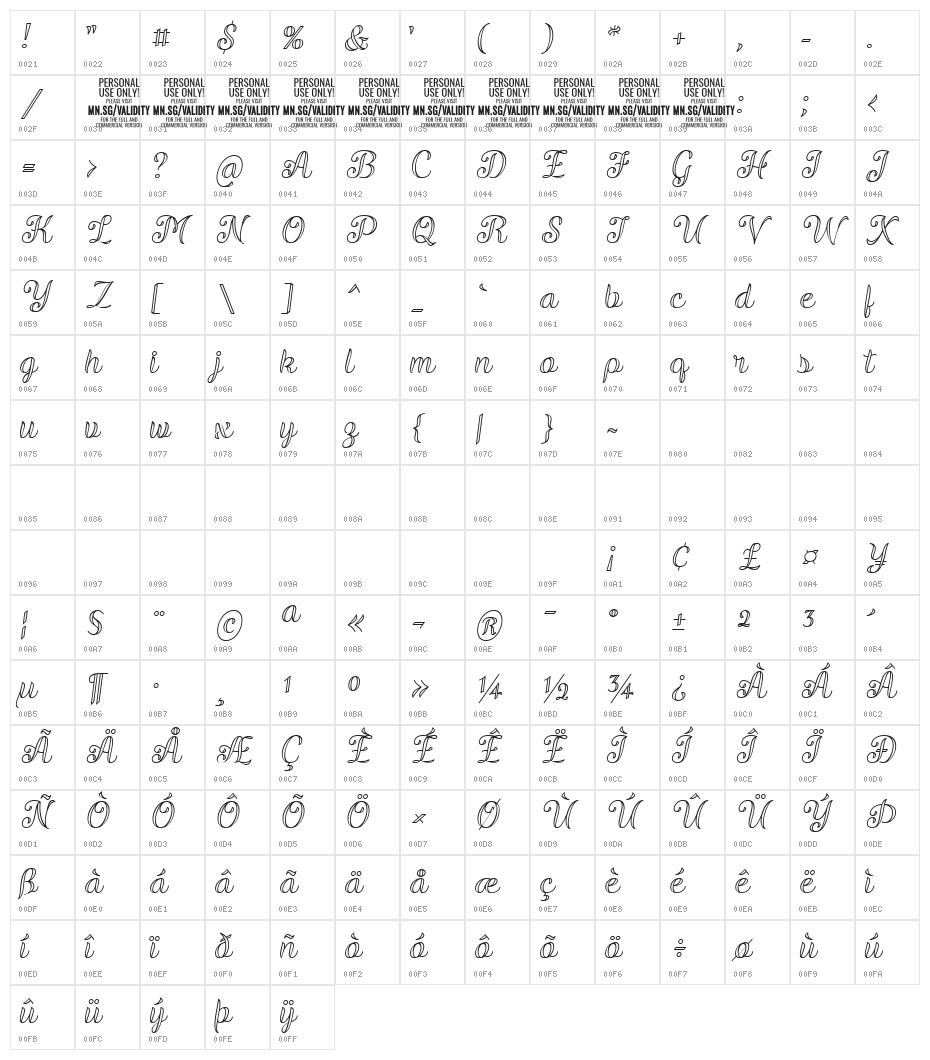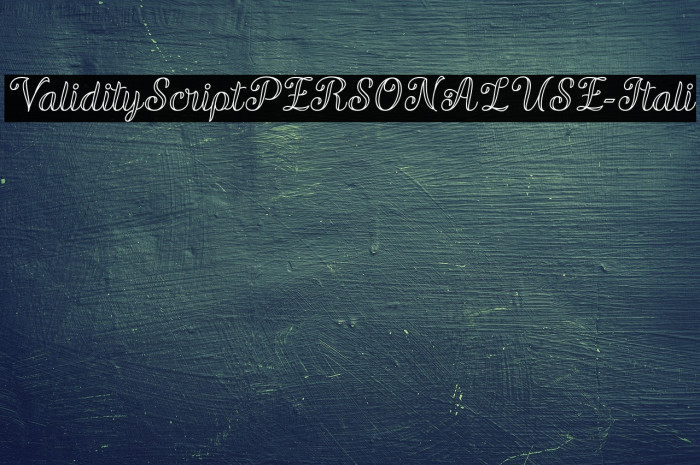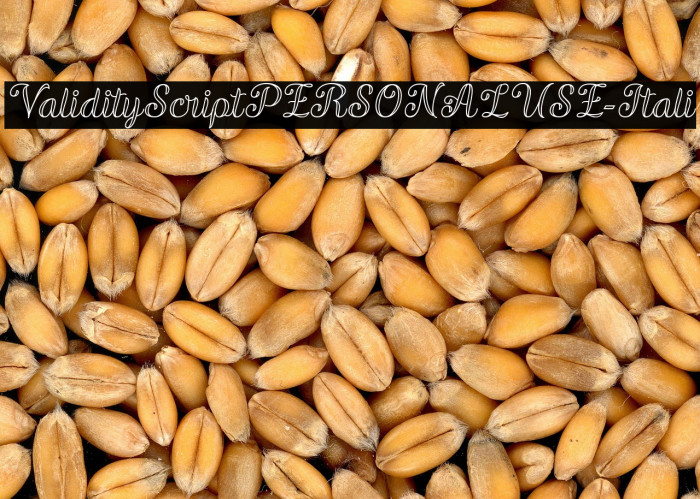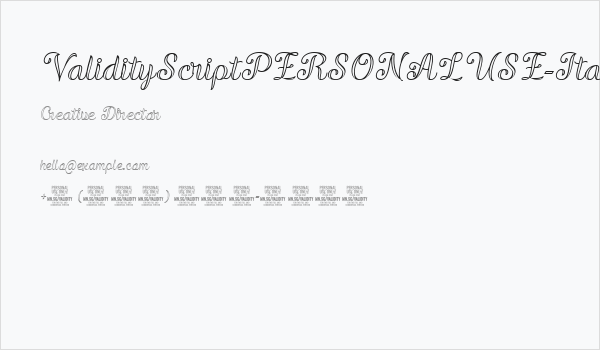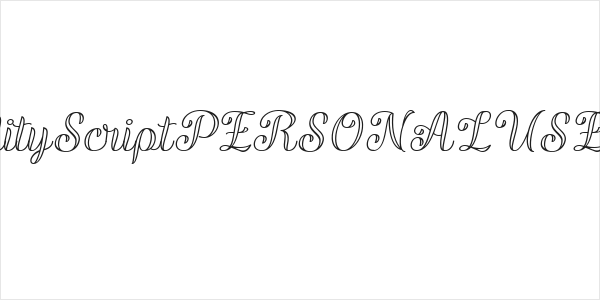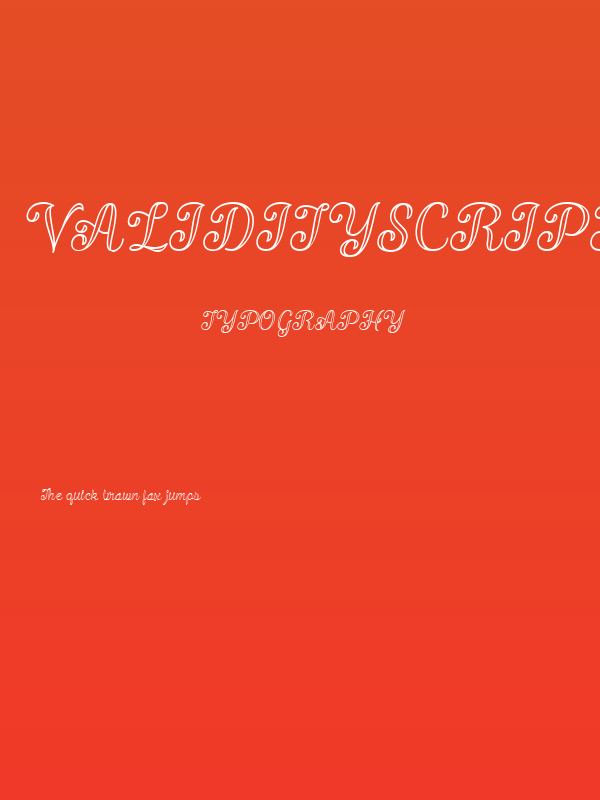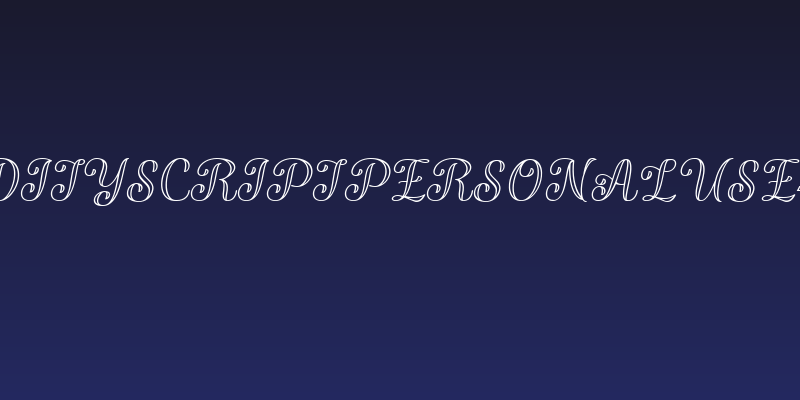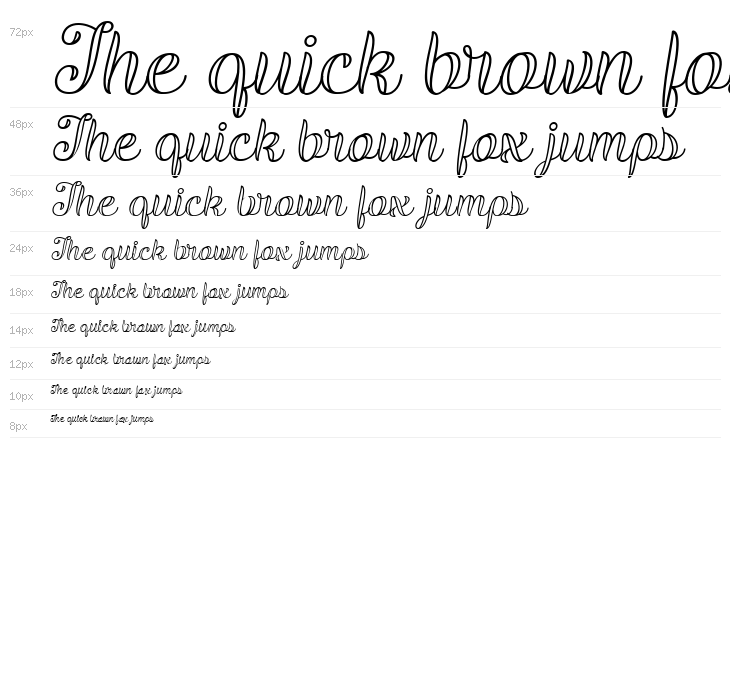
ValidityScriptPERSONALUSE-Itali Font
ValidityScriptPERSONALUSE-Itali Description
This font features an elegant and flowing script style, characterized by its cursive, interconnected letters. The uppercase letters are ornate, with loops and swirls that add a decorative touch, while the lowercase letters maintain a smooth and consistent flow. The font exudes a sense of sophistication and grace, making it suitable for formal and decorative applications. The characters are well-spaced, ensuring readability despite the intricate design. This font includes a full set of uppercase and lowercase letters, numbers, and a variety of special characters, providing versatility for different design needs.
| Use Case | Headlines, Logos, Invitations |
| Proposed Projects | Ideal for wedding invitations, elegant branding, greeting cards, and decorative headlines. |